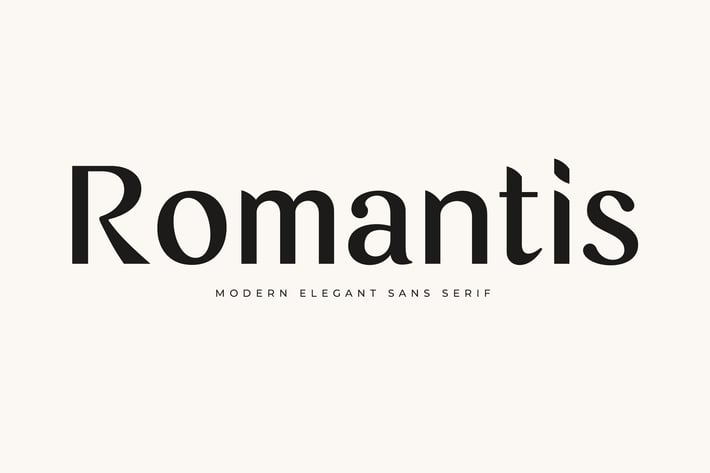
Romantis Fonts
Romantis Font
Romantis Font is a unique, versatile display font with a unique, elegant, and modern style. It is a display font perfect for branding projects, logos, social media posts, product packaging, labels, etc.